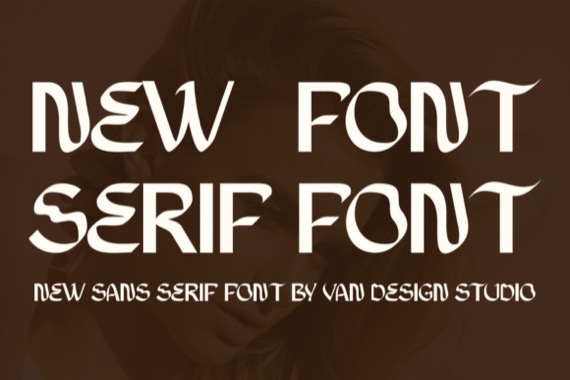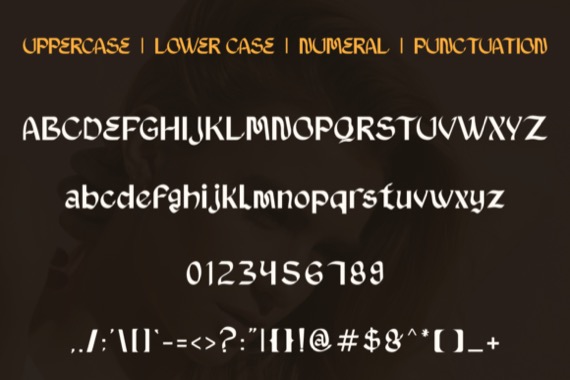
Duking Qusy is an elegant and bold serif font that was created and released by Vandesignstd. Fall in love with its incredibly versatile style and use it to create gorgeous wedding invitations, beautiful stationary art, eye-catching social media posts, and much more!
Duking Qusy Serif Font
Designer, Publisher: Vandesignstd